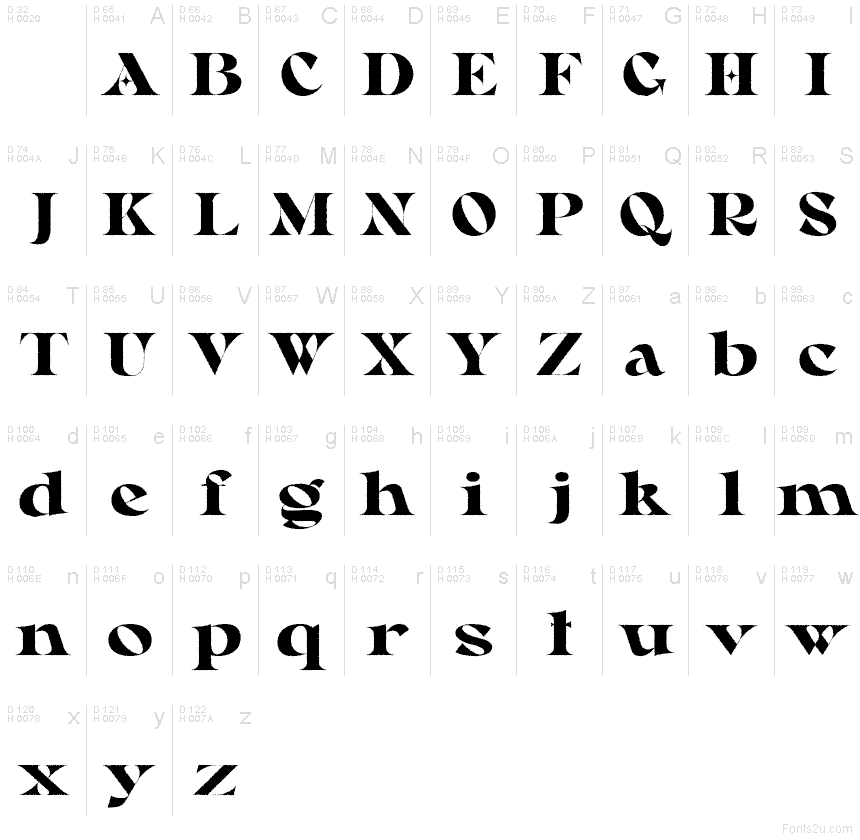
Rayken Rough Regular Demo
Rayken Rough font by Craft Supply Co. is an elegant bold serif font with a classic appeal and expanded width. It holds a sophisticated, refined aesthetic that is popular in fashion designs or personal branding for creatives. Make the best out of the letter strokes, lines, rough edge texture, and curves by trying this typeface out.